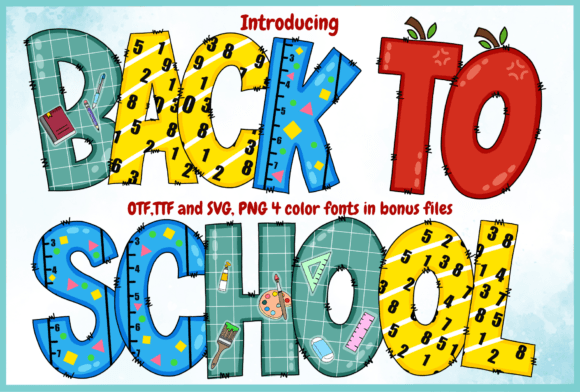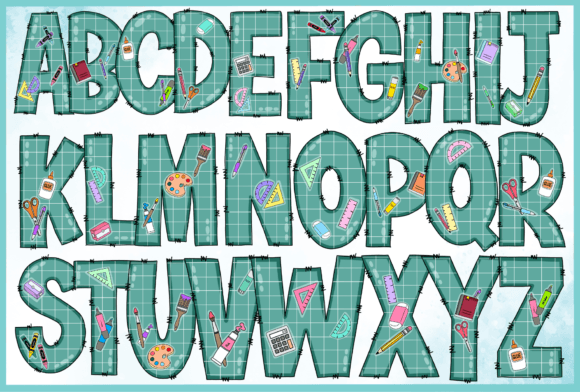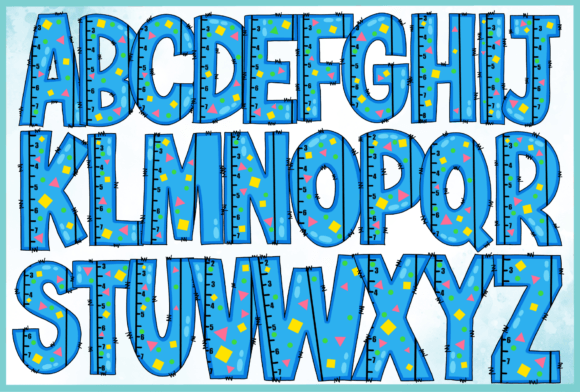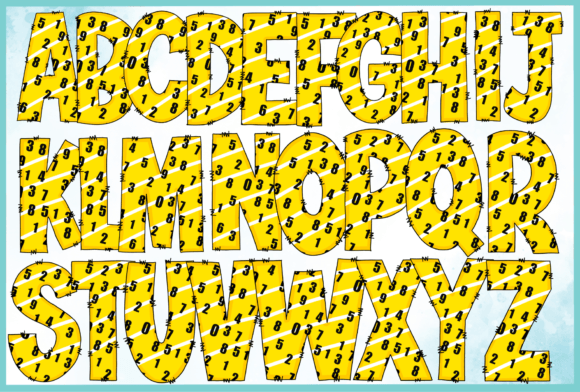
Back to School Font
Back to School is a cute and colorful color font. Use it for projects related to education, advertising, illustration, social media, stickers, clothing and so much more.